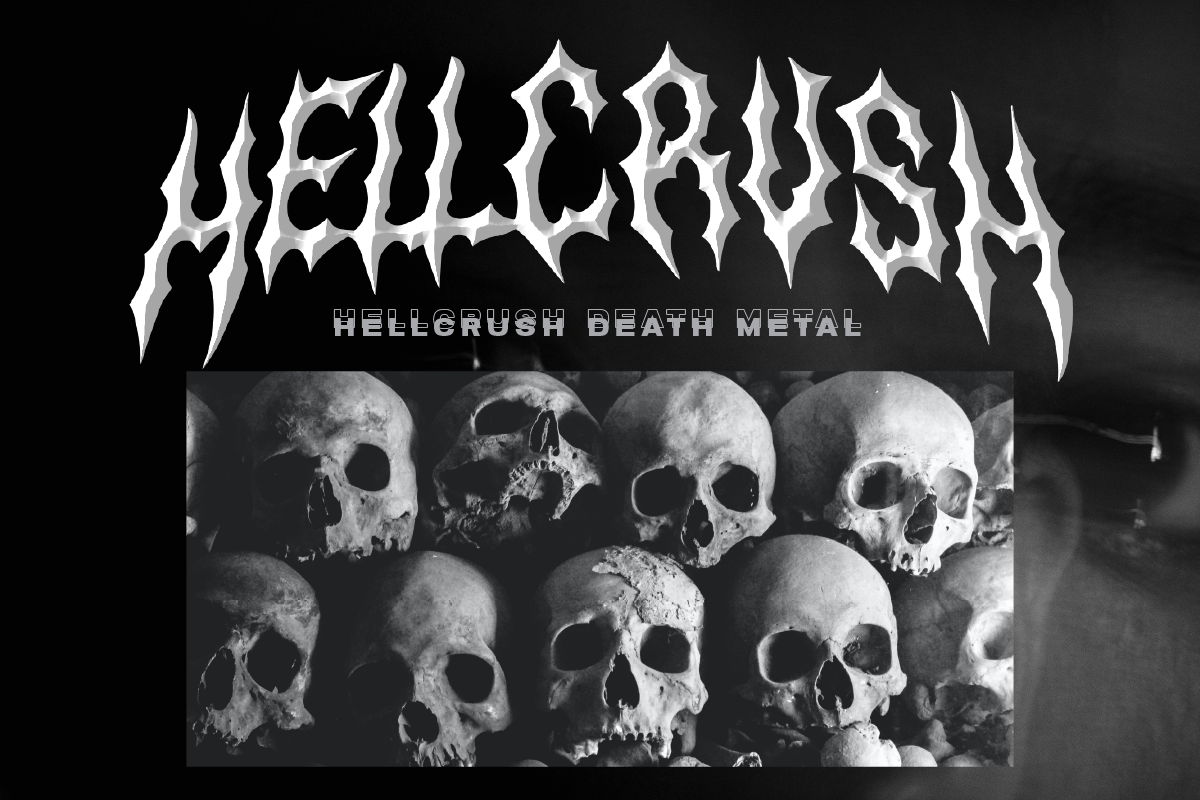
Hysteriss Font is a cool alternative for you to easily create a logo for your Underground band or whatever. Using alternate letters in the middle of a word will bring the font to life and will look cooler and fiercer, It comes with a basic character set and a small group of symbols and signs often used in the extreme music sector - Death- and classic Blackmetal like pentagram drops, roots, wings and more again.